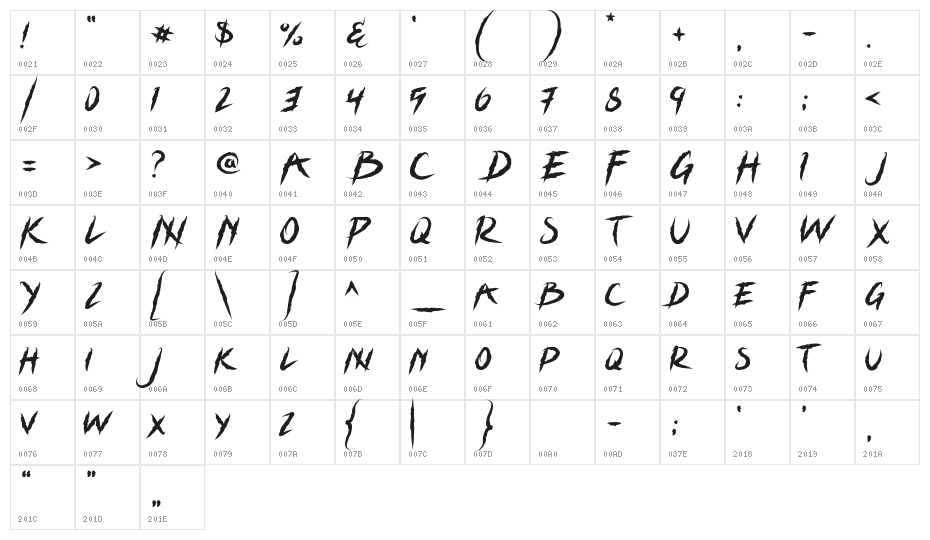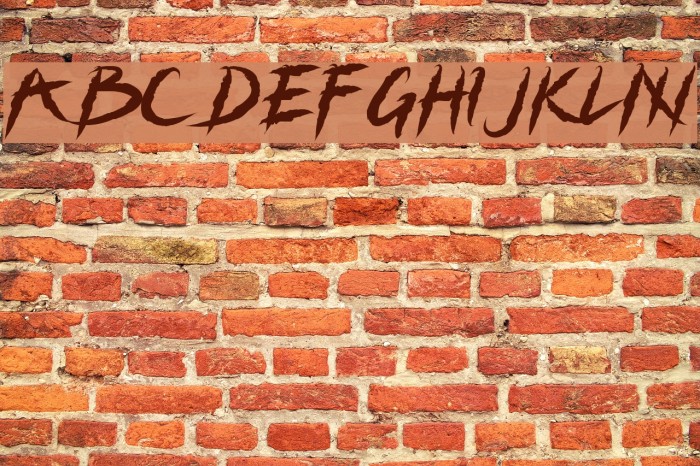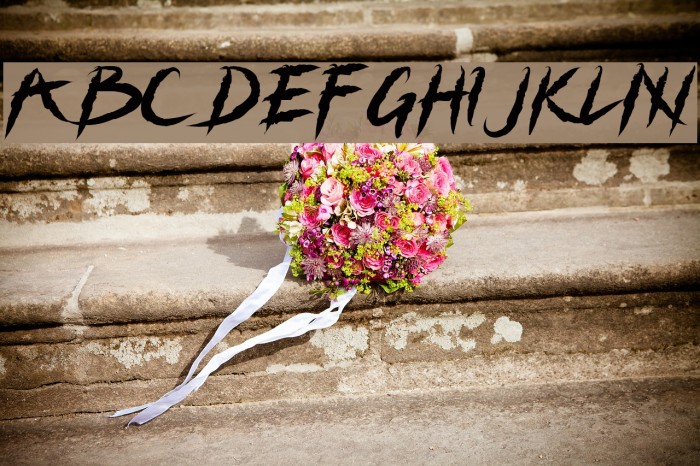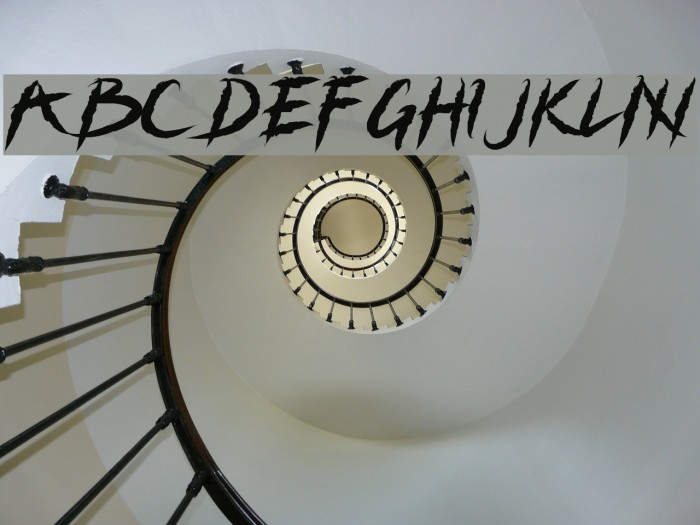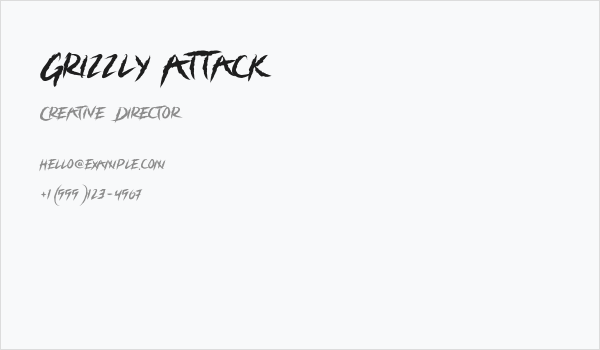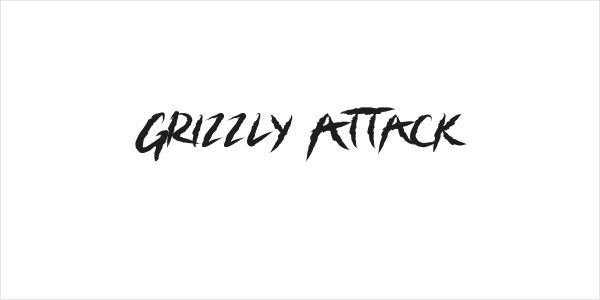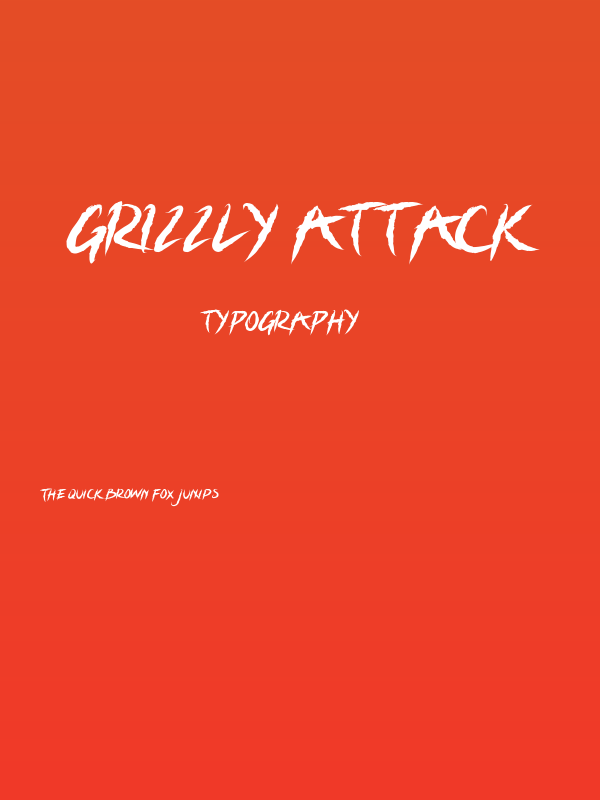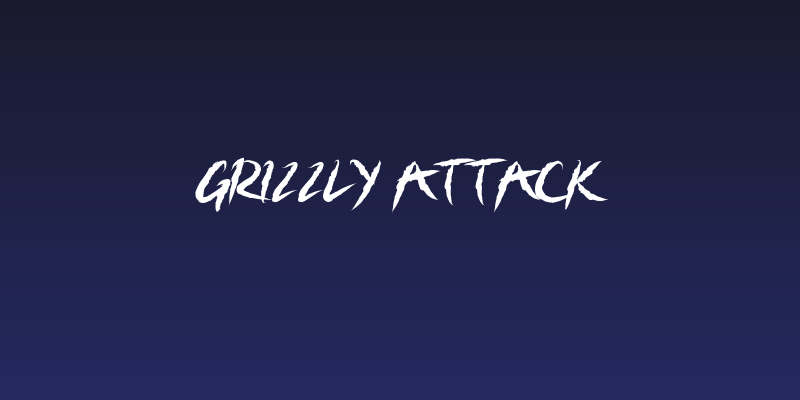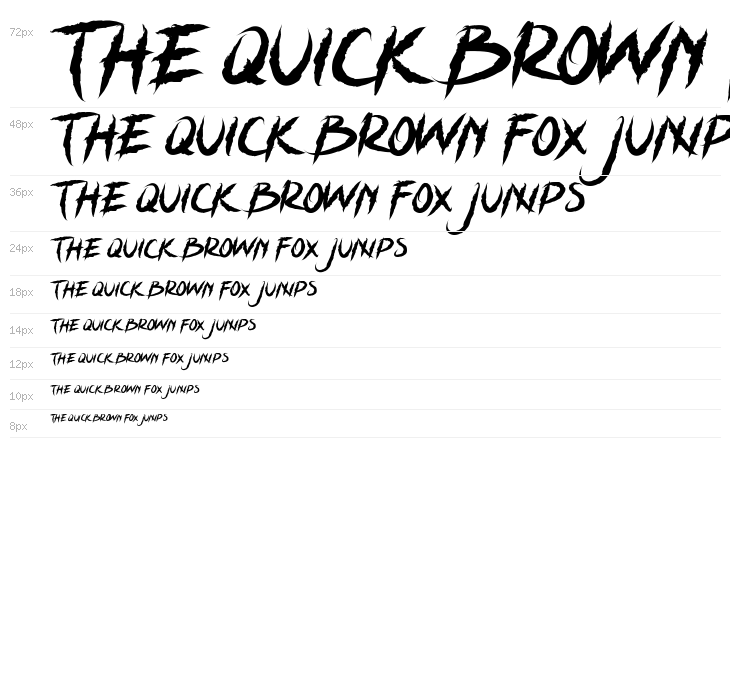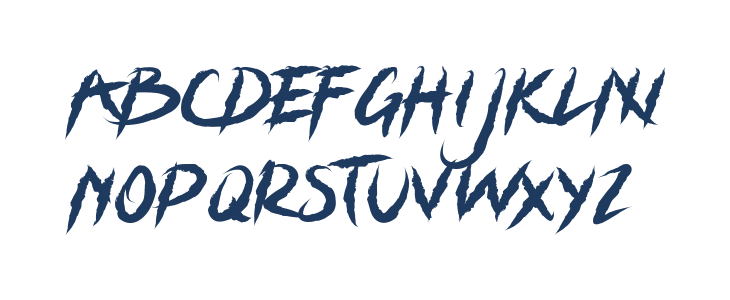
Grizzly Attack Font
Grizzly Attack Description
This font features a bold and aggressive style, reminiscent of claw marks or scratches. The characters are sharp and jagged, with uneven strokes that give a sense of movement and intensity. The uppercase and lowercase letters maintain a consistent theme, with each character appearing as though it has been slashed or torn. The numbers and special characters follow the same design, ensuring a cohesive look across all elements. This font is ideal for projects that require a dramatic and edgy appearance, such as horror-themed designs or action-oriented branding.
| Proposed Projects | Ideal for horror movie posters, action game titles, edgy branding, and Halloween-themed designs. |